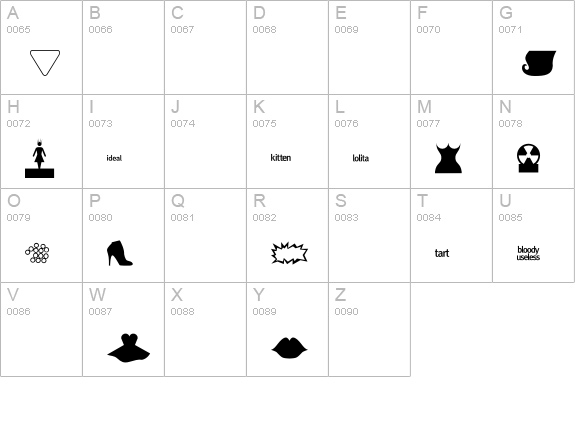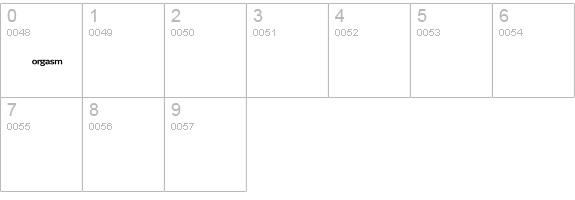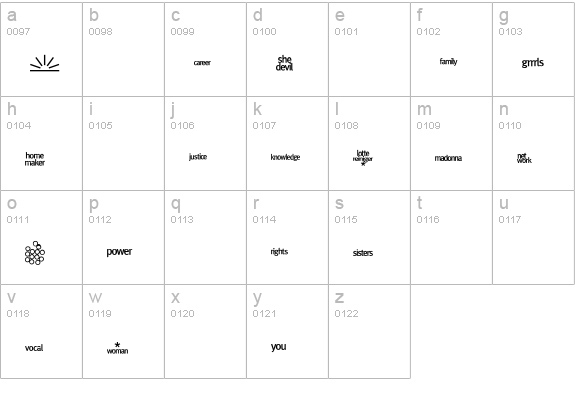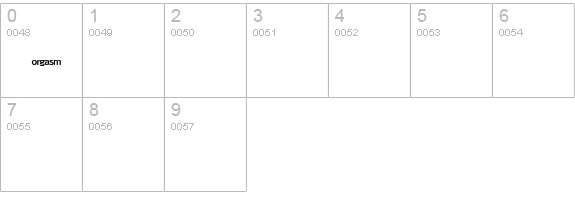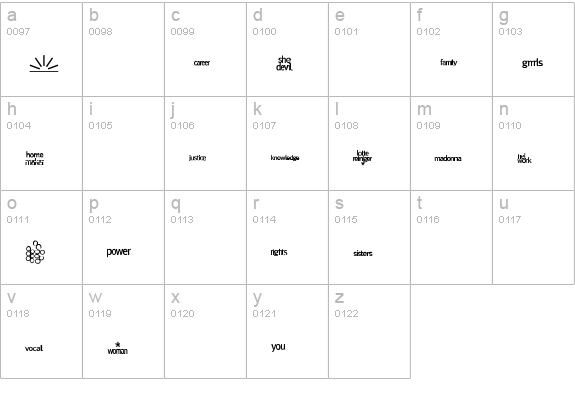
PussyGalore Font Details
PussyGalore font is a whimsical and playful typeface that exudes a sense of charm and creativity. With its unique and quirky design, PussyGalore font is perfect for adding a touch of personality to your projects. This font features a mix of curvy and straight lines, giving it a fun and dynamic look that is sure to make your text stand out. Best of all, PussyGalore font is available for free download at FontsMarket.com. This means you can easily access this delightful font and use it in your designs without any cost. Whether you're working on a poster, invitation, or logo, PussyGalore font is a versatile option that will add a touch of fun to your creations. Don't miss out on the opportunity to elevate your designs with this charming and free font!